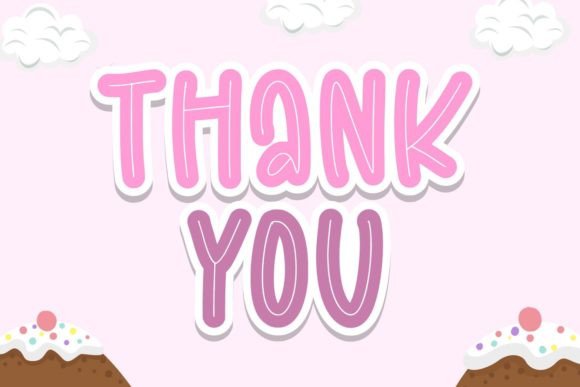
Introduction to Minie Cream Font
Have you ever stared at a blank canvas, struggling to find the perfect font to bring your creative project to life? That’s exactly where I was when I stumbled upon the Minie Cream Font – and it was love at first sight. This cool and casual handwritten font has a way of elevating even the simplest of designs, making it a valuable addition to any designer’s toolkit.
As a design resource, the Minie Cream Font is a game-changer. Its unique blend of style and sophistication makes it perfect for a wide range of creative projects, from digital art to print materials. Plus, with a transparent background, you can easily customize it to fit your design needs. Whether you’re a seasoned pro or just starting out, this high-quality font is sure to become a trusted companion in your design journey.
Key Features of Minie Cream Font
- High-quality design resource perfect for creative projects
- Comes with a transparent background for seamless integration
- Features a unique, modern design with a soft and creamy aesthetic
- Includes a range of characters, including uppercase and lowercase letters, numbers, and punctuation marks
Honest Review: Minie Cream Font
I recently stumbled upon the Minie Cream Font and I must say, it’s a fantastic addition to any design project. The moment I downloaded it, I was impressed by its high quality and unique style. ✨
The font’s transparent background allows for seamless integration into any design, whether it’s for a website, social media, or print material. This flexibility is a major plus, as it opens up a world of design possibilities.
- Unique and whimsical style
- Only available in a single style (may not be suitable for more formal designs)
- No comprehensive documentation (may require some trial and error to use effectively)
Overall, I’m very impressed with the Minie Cream Font. It’s a fantastic addition to any design library and I highly recommend it to anyone looking to add some creativity to their project. ⚠️ Be aware of the limitations, but for most designers, this font will be a valuable resource.
Minie Cream Font
Tips for Getting the Most Out of Minie Cream Font
For optimal results, use Minie Cream Font on a light-colored background to make the text stand out. You can also pair it with other fonts to create a unique and stylish design.
Minie Cream Font is perfect for wedding invitations, baby showers, and other special occasions. It’s also great for branding and marketing materials, such as logos and business cards.